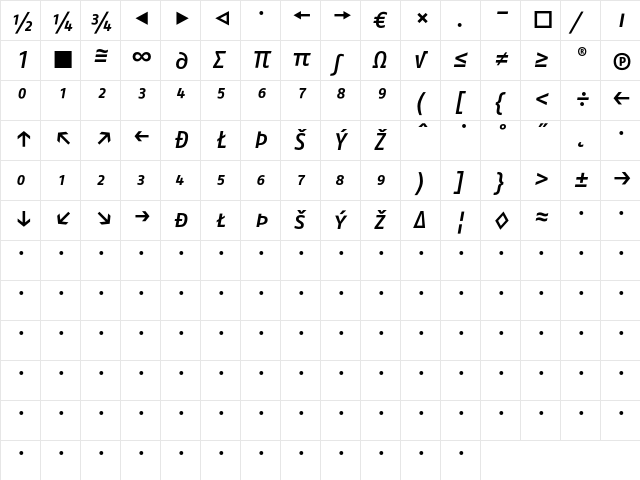
FagoNo MediumItalicCapsExp
Design Context for FagoNo Typeface
FagoNo takes a measured approach to typography — its balanced proportions and neutral character make it a reliable workhorse for both digital and print work. The slanted form adds forward momentum and visual energy.
Pro Tip: Try FagoNo for annotation and caption copy alongside an upright companion — the contrast in angle creates a dynamic but ordered typographic system.